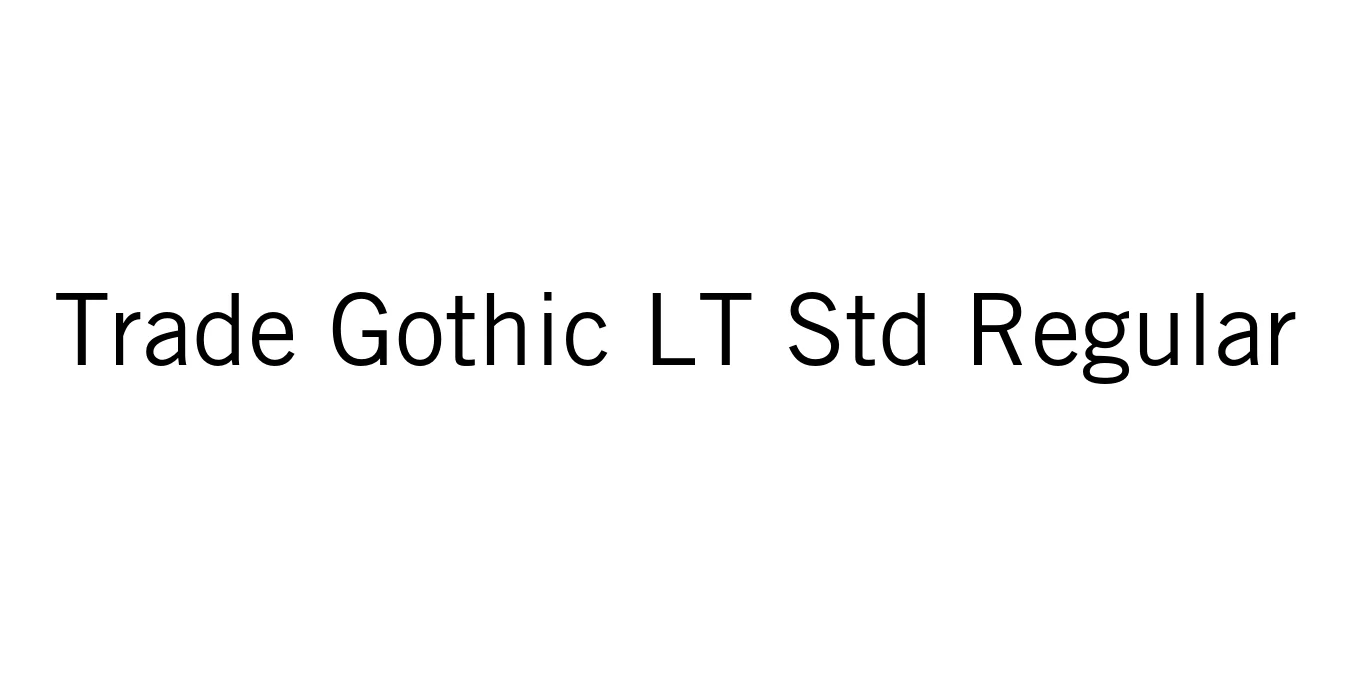
Trade Gothic LT Std Regular
Designed by Jackson Burke
Trade Gothic LT Std Regular is a cornerstone of mid-century grotesque sans-serif design, originally developed by Jackson Burke in 1948. Unlike many other sans-serif families that were designed as a unified system, Burke expanded the Trade Gothic family over many years until 1960, resulting in a series of fonts that possess a unique, slightly irregular character. This lack of rigid consistency gives the typeface an organic, "gritty" feel that distinguishes it from the more clinical structure of modern neo-grotesques like Helvetica.
Because of its architectural stability and functional clarity, Trade Gothic became a favorite in the advertising and editorial worlds. It is often described as a "workhorse" typeface due to its extreme versatility and its ability to remain legible across a variety of media. Its complex history and distinct personality have allowed it to remain relevant in contemporary design, frequently used to evoke a sense of industrial reliability and timeless professional style.
Trade Gothic LT Std Regular Best Uses
Perfect for headlines, subheadings, and magazine body text for a professional look.
Highly effective in high-impact print and digital marketing campaigns.
Ideal for building a reliable and authoritative brand presence.
Clean and legible for navigation elements and user interface components.